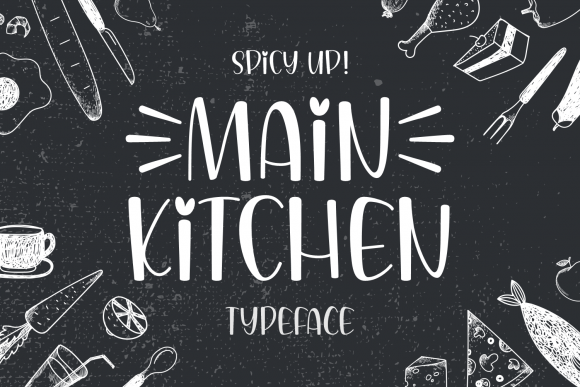
Main Kitchen Font: The Perfect Handwritten Font for Your Brand
In the world of typography, fonts play a crucial role in defining a brand’s identity. With numerous font styles available, finding the right one that resonates with your brand’s personality can be a daunting task. However, if you’re looking for a trendy and authentic-looking font, look no further than Main Kitchen Font. In this article, we’ll delve into the features and benefits of Main Kitchen Font, and explore how you can use it to elevate your brand’s visual identity.
What is Main Kitchen Font?
Main Kitchen Font is an all-caps, handwritten font that exudes a sense of modernity and friendliness. Its unique, cursive style makes it stand out from traditional fonts, giving your brand a distinctive voice. The font’s handcrafted nature lends an air of authenticity, making it perfect for brands that want to appear approachable and relatable.
The Special Touch: Heart-Dotted ‘i’
One of the standout features of Main Kitchen Font is its customizable ‘i’ dot. What makes this font extra special is that the ‘i’ can be dotted with a heart, adding a touch of whimsy and playfulness to your text. This feature allows you to add a subtle yet meaningful detail to your brand’s typography, setting it apart from others.
How to Use Main Kitchen Font
Main Kitchen Font is incredibly versatile, making it suitable for various applications. Here are some ways you can use this font to elevate your brand:
- Social Media Posts: Use Main Kitchen Font to create eye-catching social media posts that reflect your brand’s personality. The font’s trendy and authentic look makes it perfect for engaging with your audience on platforms like Instagram, Facebook, and Twitter.
- Corporate Branding: Incorporate Main Kitchen Font into your corporate branding materials, such as business cards, brochures, and letterheads. The font’s professional yet friendly demeanor makes it an excellent choice for establishing a strong brand identity.
- Packaging Design: Add a personal touch to your product packaging with Main Kitchen Font. The font’s handwritten style can help create a sense of warmth and approachability, making your products more relatable to customers.
Benefits of Using Main Kitchen Font
Using Main Kitchen Font can bring numerous benefits to your brand. Here are some of the advantages of incorporating this font into your visual identity:
- Unique Identity: Main Kitchen Font helps you establish a unique visual identity that sets you apart from competitors. The font’s distinctive style ensures that your brand stands out in a crowded market.
- Emotional Connection: The font’s friendly and approachable nature helps create an emotional connection with your audience. By using Main Kitchen Font, you can build a stronger rapport with your customers and establish a loyal following.
- Versatility: Main Kitchen Font is highly versatile, making it suitable for various applications, from digital media to print materials. This flexibility ensures that you can use the font consistently across different platforms.
Tips for Effective Use of Main Kitchen Font
To get the most out of Main Kitchen Font, here are some tips to keep in mind:
- Use it sparingly: While Main Kitchen Font is a beautiful font, it’s essential to use it judiciously. Overusing the font can make your content appear cluttered and unprofessional.
- Pair it with complementary fonts: Experiment with pairing Main Kitchen Font with other fonts to create a harmonious visual identity. Choose fonts that complement the font’s style and tone.
- Consider legibility: Ensure that your text is legible, especially when using the font for body copy. Adjust the font size and style as needed to ensure that your content is easy to read.
Main Kitchen Font is a unique and versatile font that can help elevate your brand’s visual identity. With its trendy and authentic look, this all-caps, handwritten font is perfect for brands that want to appear friendly and approachable. By incorporating Main Kitchen Font into your branding materials, you can establish a distinctive voice and build a stronger connection with your audience.